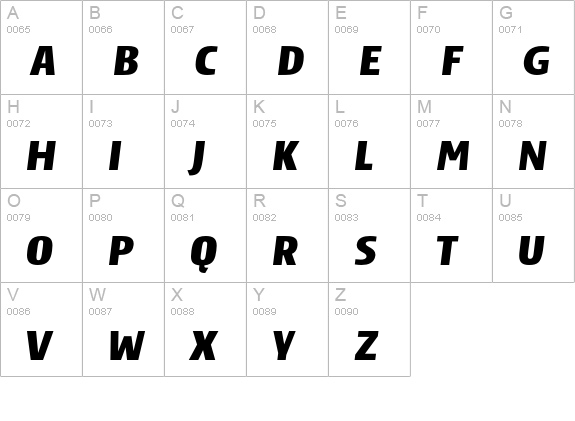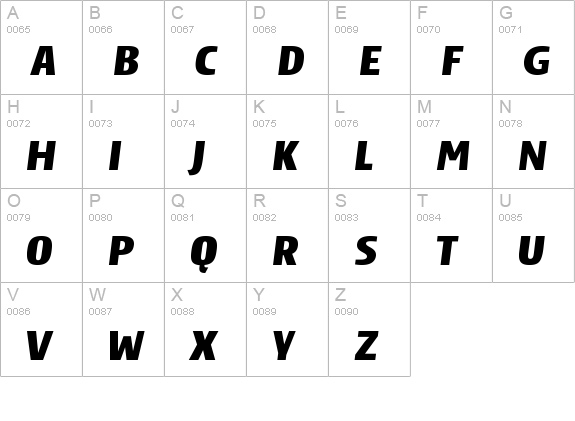
Storm Sans Std Bold Italic is a strong, high-contrast, italic variant in the Storm typeface family \xE2\x80\x94 well suited to headlines, attention-grabbing titles, and strong calls-to-action.
Storm Sans Std Bold Italic font is a dynamic and versatile typeface that exudes strength and modernity. Its bold and italic style gives your text a bold and impactful presence, making it perfect for headlines, titles, and other attention-grabbing designs. The sleek and contemporary design of Storm Sans Std Bold Italic font makes it a great choice for projects that require a professional and sophisticated look. One of the best things about Storm Sans Std Bold Italic font is that it is available for free download at FontsMarket.com. This means that you can easily access and use this stylish font in your projects without any cost. Whether you are working on a personal project or a professional design, Storm Sans Std Bold Italic font is a fantastic choice that will elevate your work to the next level. Download it now and add a touch of bold elegance to your designs!